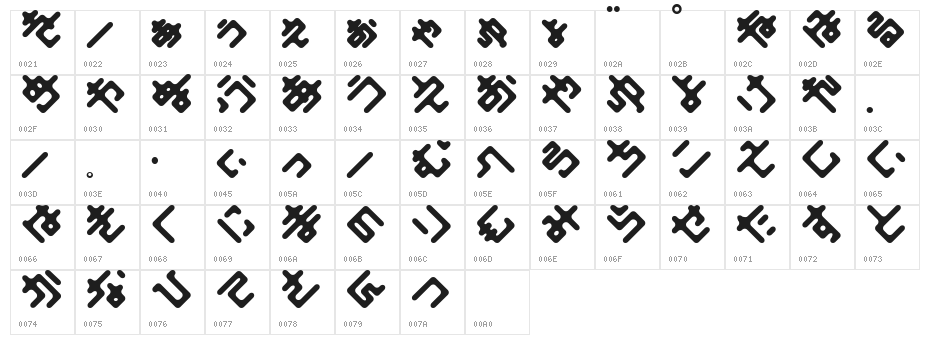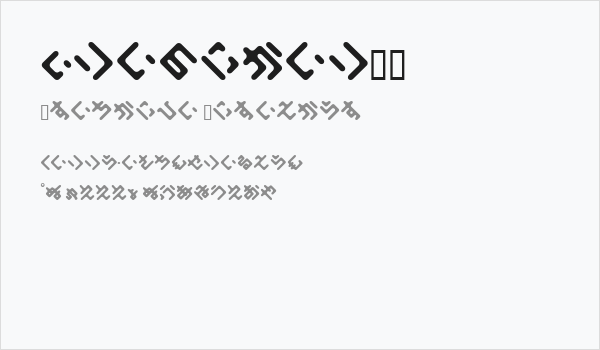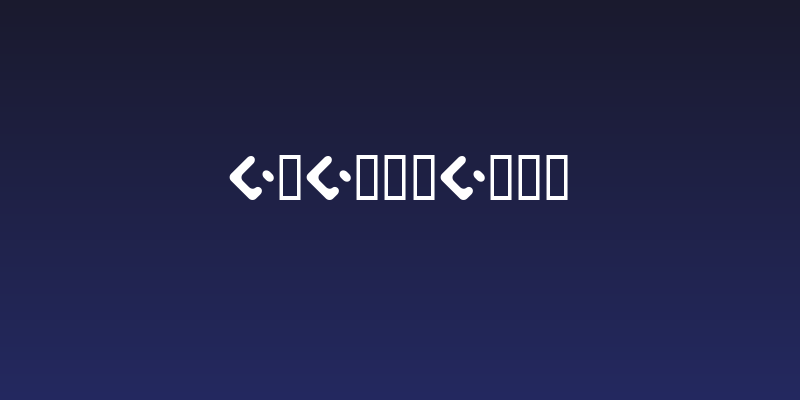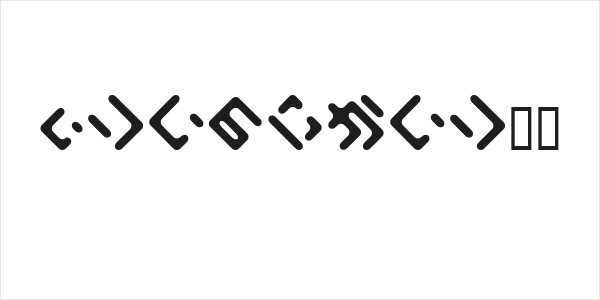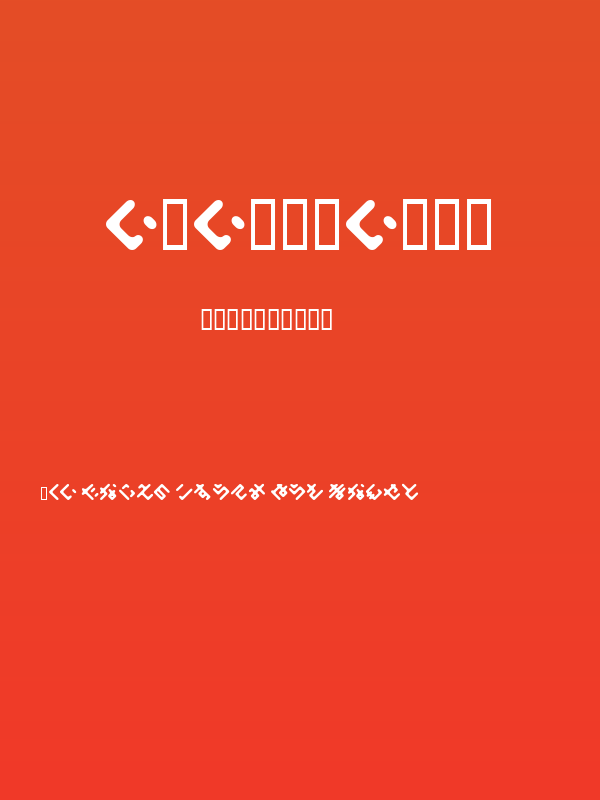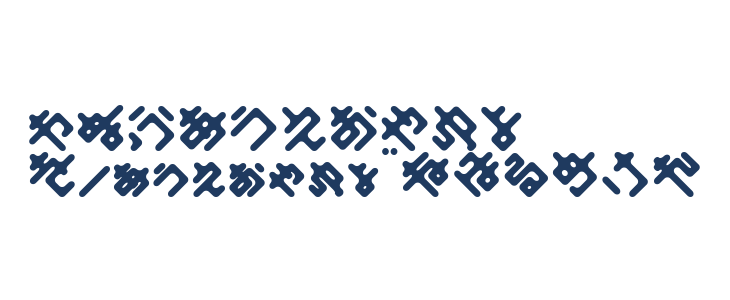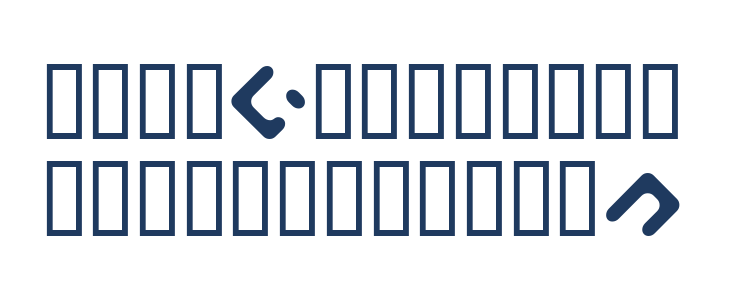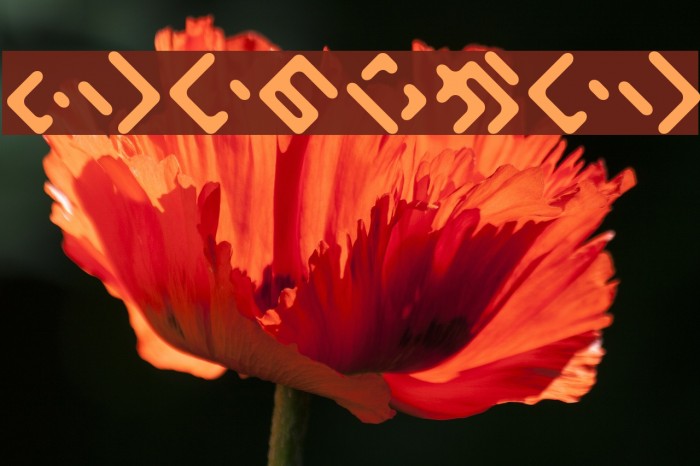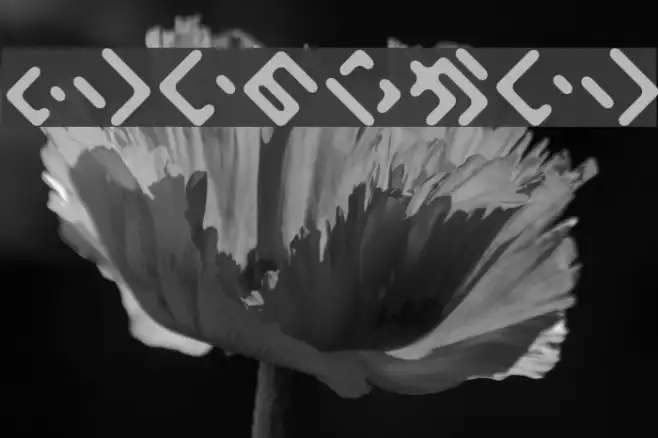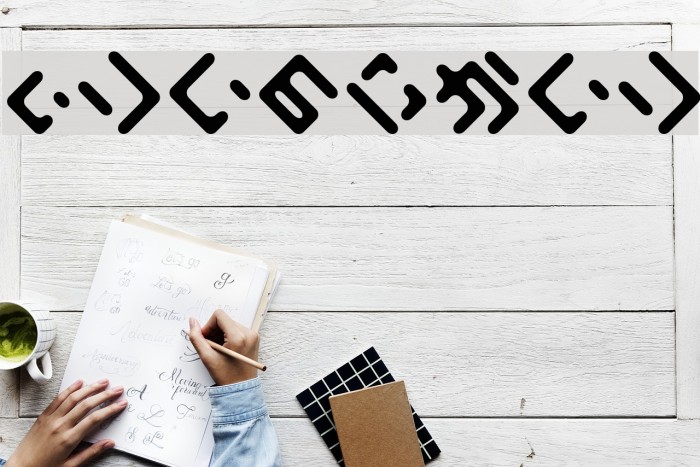
ElekitelHR Font
ElekitelHR Description
This font features a unique and abstract design, characterized by its bold, geometric shapes and sharp angles. The characters are constructed with thick lines and exhibit a futuristic, digital aesthetic. The uppercase letters are particularly striking, with a blocky, almost pixelated appearance that suggests a modern, tech-inspired style. The lowercase letters maintain this theme but with a slightly more fluid form, adding a touch of dynamism. Numbers and special characters follow the same design principles, ensuring consistency across the entire typeface. The overall look is both eye-catching and unconventional, making it suitable for creative and innovative projects.